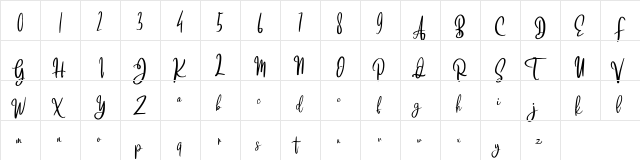
Brattsoon FREE Regular
Design Context for Brattsoon FREE Typeface
Brattsoon FREE is a composed and adaptable typeface that performs quietly and consistently across a wide range of design contexts.